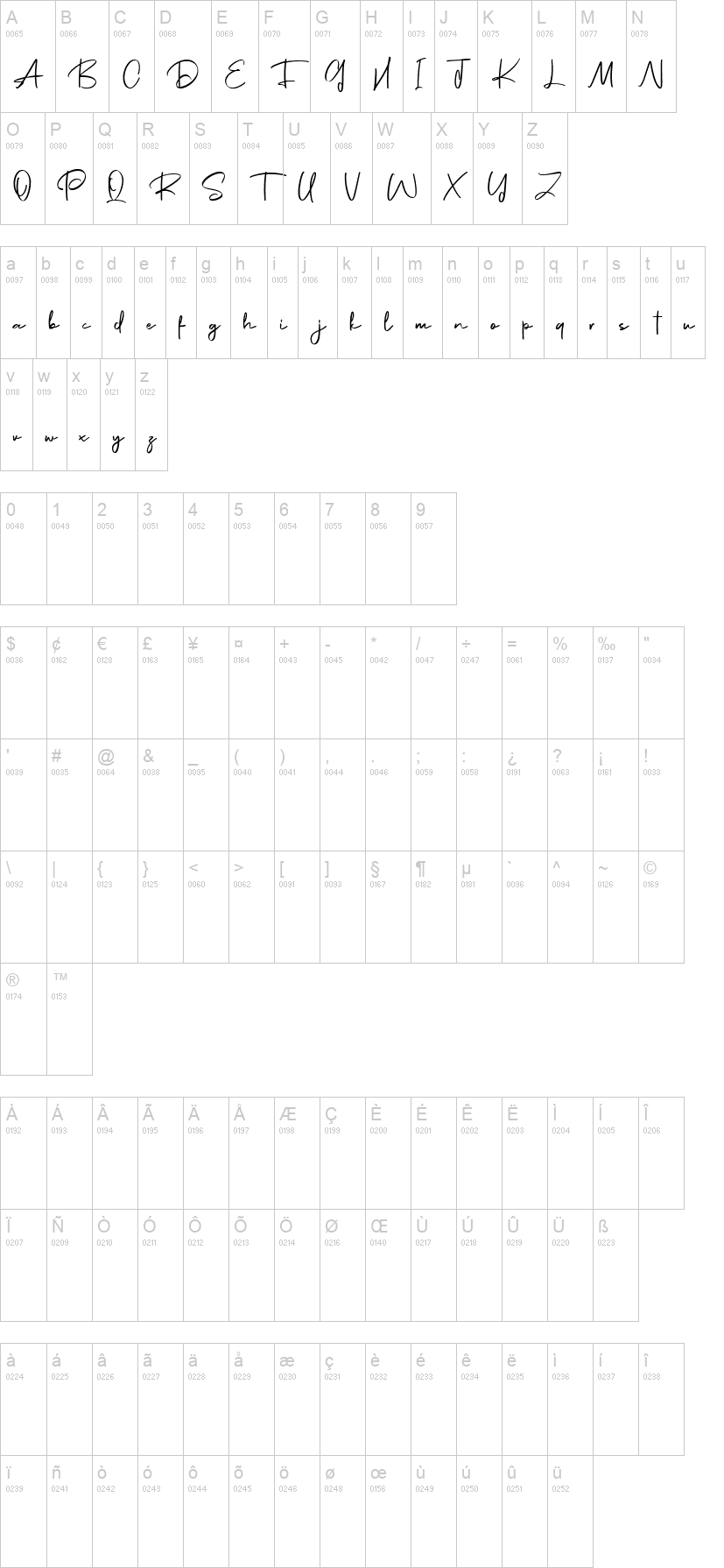
Scott Pilgrim Font
Scott Pilgrim Font - Web for the lettering of “scott pilgrim”, it is very similar to a font called superfly by fontalicious and for the part of “vs. Web scott pilgrim font generator & download is available free at fontbolt. Try our text generator and create cool graphics for scott pilgrim font, then you can save the font. Web scott pilgrim font vs. The scott pilgrim font is a logo font that is popular due to the scott pilgrim movie. The world”, it is similar to a font called dusty. Web scott pilgrim font free download. Web scott pilgrim by vunira design.
Web scott pilgrim font free download. Web for the lettering of “scott pilgrim”, it is very similar to a font called superfly by fontalicious and for the part of “vs. Web scott pilgrim font vs. The world”, it is similar to a font called dusty. Try our text generator and create cool graphics for scott pilgrim font, then you can save the font. Web scott pilgrim font generator & download is available free at fontbolt. The scott pilgrim font is a logo font that is popular due to the scott pilgrim movie. Web scott pilgrim by vunira design.
The world”, it is similar to a font called dusty. The scott pilgrim font is a logo font that is popular due to the scott pilgrim movie. Web scott pilgrim font free download. Web for the lettering of “scott pilgrim”, it is very similar to a font called superfly by fontalicious and for the part of “vs. Web scott pilgrim font generator & download is available free at fontbolt. Try our text generator and create cool graphics for scott pilgrim font, then you can save the font. Web scott pilgrim font vs. Web scott pilgrim by vunira design.
Scott Pilgrim font by Vunira Design FontRiver
The scott pilgrim font is a logo font that is popular due to the scott pilgrim movie. The world”, it is similar to a font called dusty. Web scott pilgrim by vunira design. Web scott pilgrim font generator & download is available free at fontbolt. Try our text generator and create cool graphics for scott pilgrim font, then you can.
Scott Pilgrim vs. the World The Game Font Download Fonts
The world”, it is similar to a font called dusty. Web scott pilgrim by vunira design. Try our text generator and create cool graphics for scott pilgrim font, then you can save the font. The scott pilgrim font is a logo font that is popular due to the scott pilgrim movie. Web for the lettering of “scott pilgrim”, it is.
Scott Pilgrim Font
Web scott pilgrim font free download. The world”, it is similar to a font called dusty. Web scott pilgrim font generator & download is available free at fontbolt. The scott pilgrim font is a logo font that is popular due to the scott pilgrim movie. Web scott pilgrim by vunira design.
Scott Pilgrim Handdraw Signature Font (804515) Handwritten Font
The world”, it is similar to a font called dusty. The scott pilgrim font is a logo font that is popular due to the scott pilgrim movie. Web scott pilgrim font free download. Web scott pilgrim font generator & download is available free at fontbolt. Web for the lettering of “scott pilgrim”, it is very similar to a font called.
Scott Pilgrim Font Free Font Download
Try our text generator and create cool graphics for scott pilgrim font, then you can save the font. Web for the lettering of “scott pilgrim”, it is very similar to a font called superfly by fontalicious and for the part of “vs. Web scott pilgrim font generator & download is available free at fontbolt. The scott pilgrim font is a.
Scott Pilgrim font Scott pilgrim, Anime, Video game
The scott pilgrim font is a logo font that is popular due to the scott pilgrim movie. Web scott pilgrim font free download. Web for the lettering of “scott pilgrim”, it is very similar to a font called superfly by fontalicious and for the part of “vs. Web scott pilgrim by vunira design. The world”, it is similar to a.
Scott Pilgrim font Pilgram, Scott Pilgrim, Nirvana, Video Game
Web scott pilgrim font free download. Web for the lettering of “scott pilgrim”, it is very similar to a font called superfly by fontalicious and for the part of “vs. Try our text generator and create cool graphics for scott pilgrim font, then you can save the font. Web scott pilgrim font generator & download is available free at fontbolt..
Scott Pilgrim Vs The World Title Font, HD Png
Web scott pilgrim by vunira design. Web for the lettering of “scott pilgrim”, it is very similar to a font called superfly by fontalicious and for the part of “vs. Web scott pilgrim font free download. Try our text generator and create cool graphics for scott pilgrim font, then you can save the font. Web scott pilgrim font generator &.
Scott Pilgrim Handdraw Signature Font (804515) Handwritten Font
Web scott pilgrim font generator & download is available free at fontbolt. Web for the lettering of “scott pilgrim”, it is very similar to a font called superfly by fontalicious and for the part of “vs. Web scott pilgrim font free download. The world”, it is similar to a font called dusty. Web scott pilgrim by vunira design.
Scott Pilgrim Font and Scott Pilgrim Poster
Web scott pilgrim font generator & download is available free at fontbolt. The world”, it is similar to a font called dusty. Web scott pilgrim font vs. Web scott pilgrim font free download. Try our text generator and create cool graphics for scott pilgrim font, then you can save the font.
Web Scott Pilgrim By Vunira Design.
The world”, it is similar to a font called dusty. The scott pilgrim font is a logo font that is popular due to the scott pilgrim movie. Web scott pilgrim font generator & download is available free at fontbolt. Web for the lettering of “scott pilgrim”, it is very similar to a font called superfly by fontalicious and for the part of “vs.